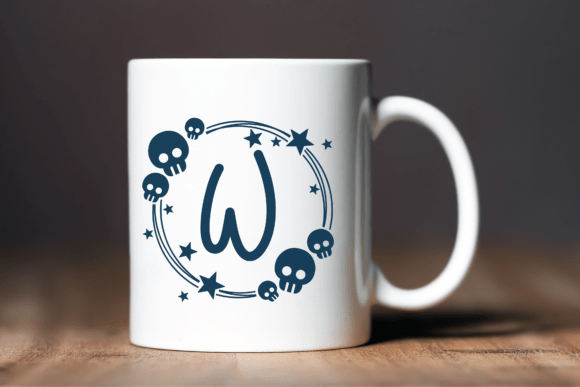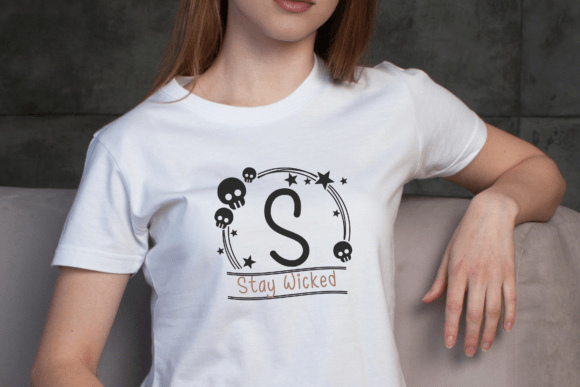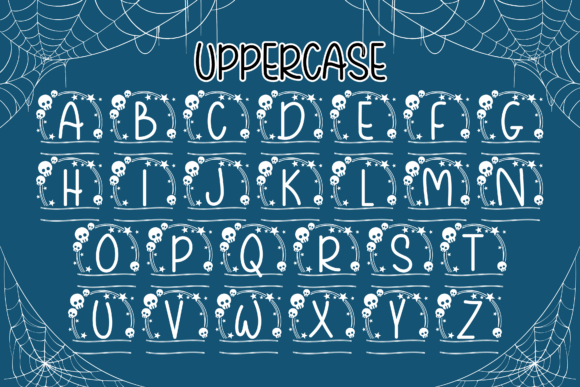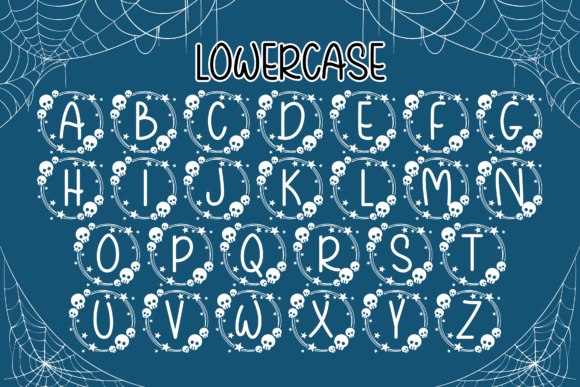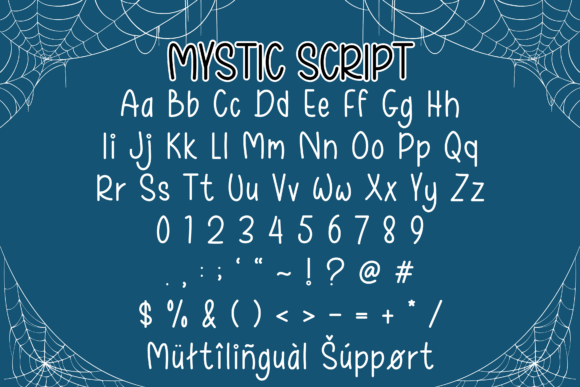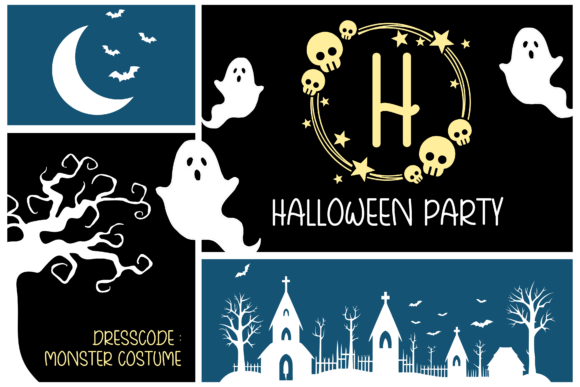
Introduction to Mystic Nightfall Monogram Font
As a designer, there’s nothing quite like the thrill of creating a high-quality project that brings a client’s vision to life. For me, that moment usually comes when I stumble upon the perfect font – one that adds an extra layer of magic to my design. Recently, I discovered the enchanting Mystic Nightfall Monogram Font, a duo that has taken my Halloween designs to the next level.
With its charming monogram and whimsical handwritten script, this font is a must-have for any creative project that requires a touch of mystery and whimsy. Whether you’re crafting party decorations, invitations, or branding materials, the Mystic Nightfall Monogram Font is sure to bring a sense of wonder and enchantment to your designs.
Key Features of Mystic Nightfall Monogram Font
- Unique and elegant design perfect for a high-quality creative project.
- Monogram font with a size of 2000px in resolution, ideal for large-scale designs and prints.
- Perfect for creating a mystical and mysterious atmosphere in your design, ideal for creative projects like invitations, posters, and branding materials.
- Unique characteristics include intricate details and a sophisticated feel, making it a standout design element in any creative project.
Honest Review: Mystic Nightfall Monogram Font
I recently stumbled upon the Mystic Nightfall Monogram Font, and I must say, it’s a fantastic addition to any creative project. The high-quality design and unique monogram style make it an excellent choice for those looking for a distinctive font.
- ✨ Unique monogram style that adds a touch of elegance to any design
- ✨ Ideal for creating a sense of mystery and intrigue, perfect for themes like fantasy or mysticism
- ⚠️ Limited character set, which may not be suitable for extensive text-based projects
- ⚠️ May require additional design elements to create a cohesive look
Overall, I’m impressed with the Mystic Nightfall Monogram Font. It’s a great design resource for those looking to add a touch of sophistication and mystery to their projects. While it may have some limitations, its unique style and high-quality design make it a valuable addition to any designer’s toolkit.
The Mystic Nightfall Monogram Font is a unique design resource perfect for creative projects. With its high-quality design and transparent background, it’s ideal for adding a touch of elegance to your work.
Tips for getting the most out of the Mystic Nightfall Monogram Font include experimenting with different font sizes, colors, and combinations to create unique and eye-catching designs. You can also use the font to create custom logos, business cards, and other marketing materials.
Common Use Cases for Mystic Nightfall Monogram Font
The Mystic Nightfall Monogram Font is perfect for a variety of creative projects, including:
- Business logos and branding
- Custom graphics and illustrations
- Personalized gifts and accessories